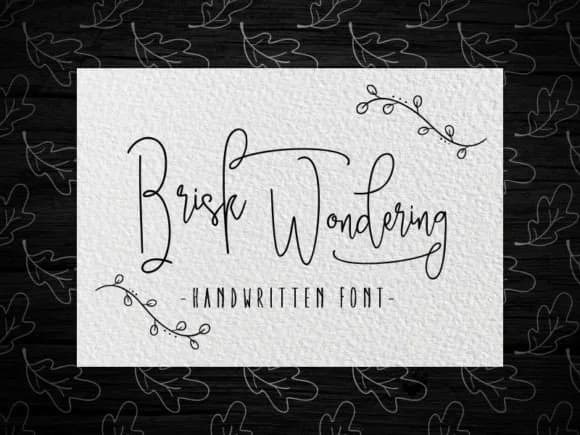
About Brisk Wondering Font
Brisk Wondering by moriztype is a flowing script typeface that captures the spontaneity of handwritten letterforms while maintaining genuine readability. The organic strokes and natural rhythm create a personal, approachable aesthetic that works across intimate designs and larger applications. This typeface brings authentic warmth to creative work without sacrificing legibility or professional polish. The font excels where personality matters most. Wedding invitation suites gain elegance and emotion from its graceful letterforms, while greeting card designs benefit from the sincerity these letters naturally convey. Packaging for artisanal brands, indie cosmetics, small-batch confections, boutique skincare lines, gains the handcrafted aesthetic that builds consumer trust and brand recognition. Menu cards and event signage also benefit from the distinctive character Brisk Wondering provides. This typeface integrates seamlessly with design software and cutting machine workflows, making it suitable for vinyl decal projects, heat-applied transfers, and custom merchandise. Whether you're developing a cohesive brand identity, creating personalized gifts, or producing specialty goods for online markets, Brisk Wondering delivers the versatility that professional designers and independent makers need. Its flexibility across traditional and modern applications makes it a dependable choice for projects demanding character and clarity in equal measure. Discover Brisk Wondering on Creative Fabrica and add its flowing elegance to your next project.
- Elegant, Flowing, Brisk Wondering
Brisk Wondering Font is a script font that shines as a display or heading face. Pair it with a clean sans-serif or serif font for body text β the contrast creates a clear hierarchy while the two styles stay balanced and easy to read.
Brisk Wondering Font
by moriztype